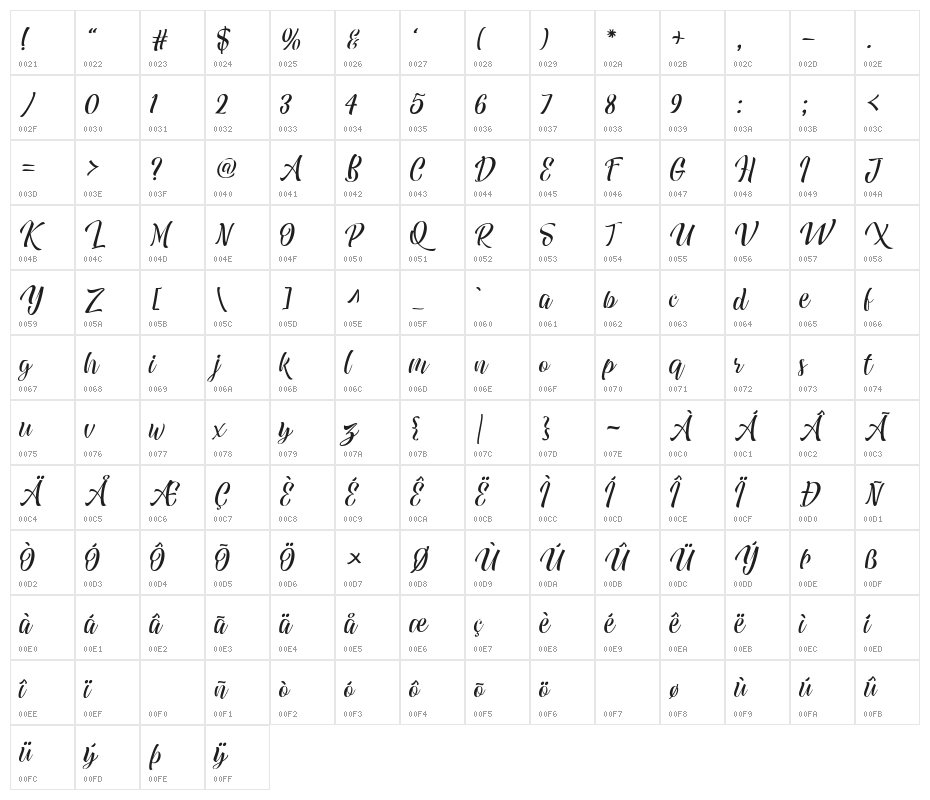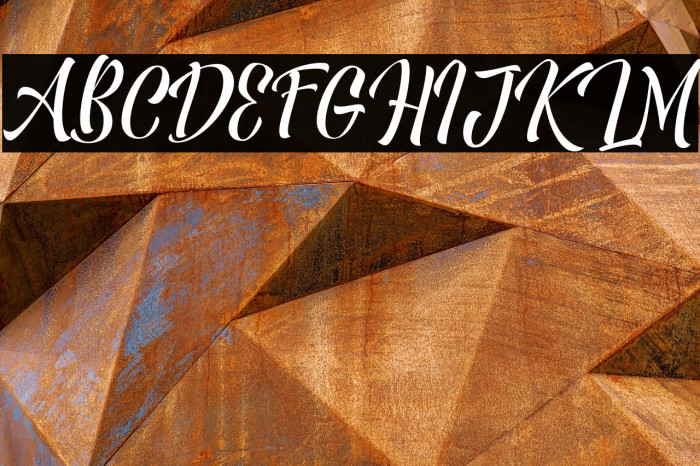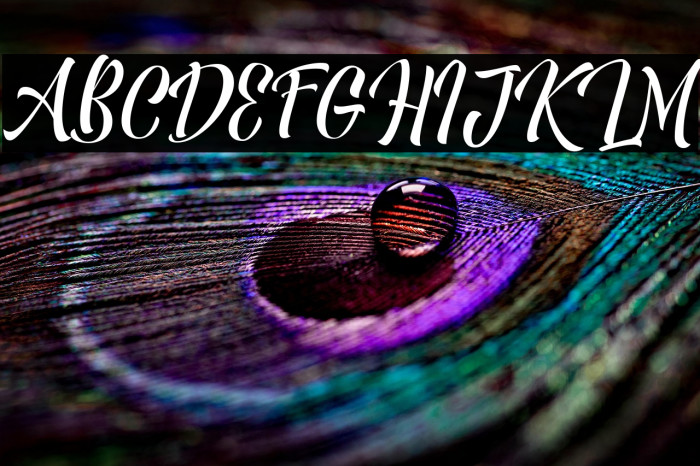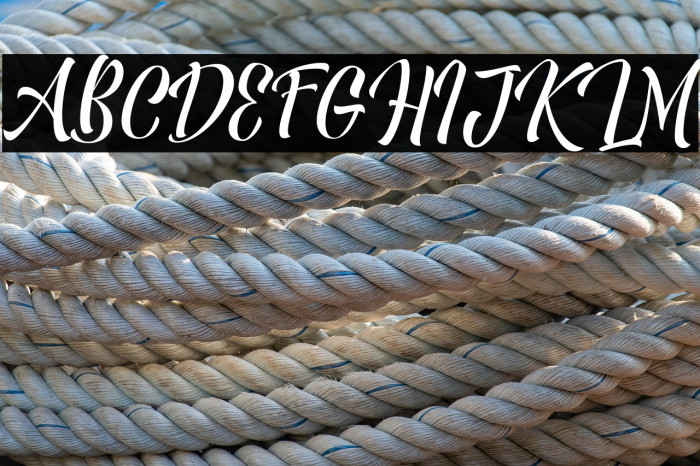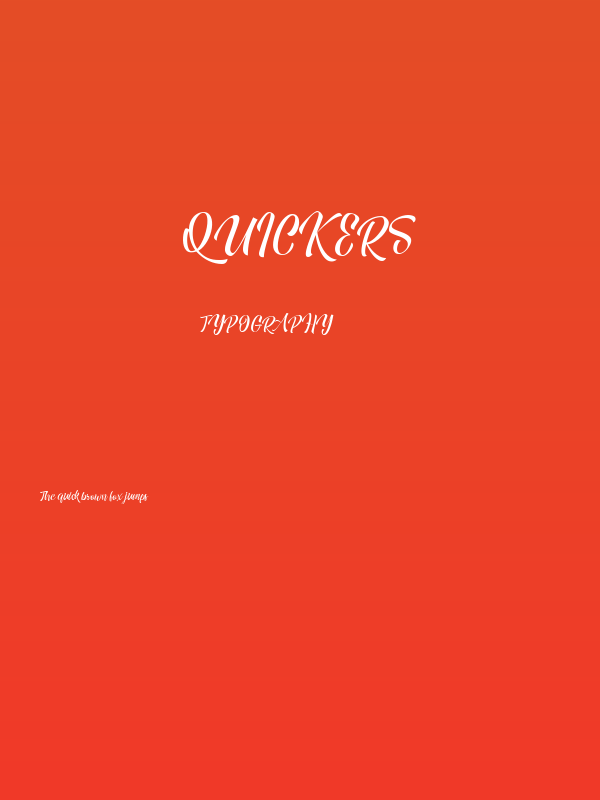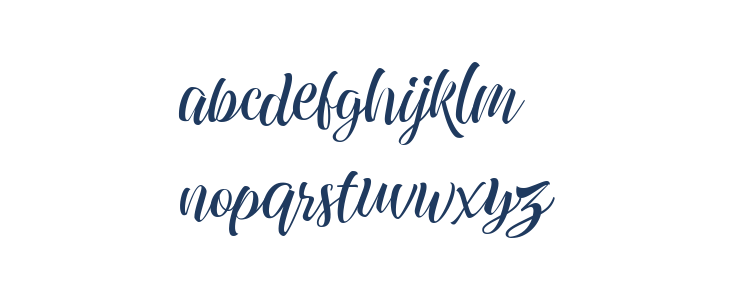
Quickers Font
Quickers Description
This font features a flowing, cursive style with elegant, sweeping strokes that give it a dynamic and lively appearance. The uppercase letters are bold and prominent, with distinctive loops and flourishes that add a touch of sophistication. The lowercase letters maintain a consistent flow, with smooth connections between each character, enhancing readability while preserving the font's artistic flair. The numerals are equally stylish, matching the overall aesthetic with their graceful curves. Special characters are thoughtfully designed to complement the letterforms, making this font versatile for various creative applications.
| Use Case | Logos, Headlines, Invitations |
| Proposed Projects | Ideal for wedding invitations, greeting cards, branding, and logo design. |